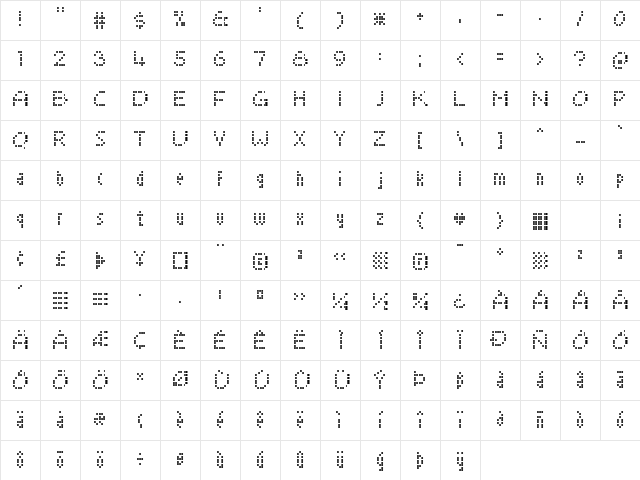
Sayso Chic Regular Free Font
Sayso Chic Regular
Design Context for Sayso Chic
Sayso Chic is a composed and adaptable typeface that performs quietly and consistently across a wide range of design contexts.